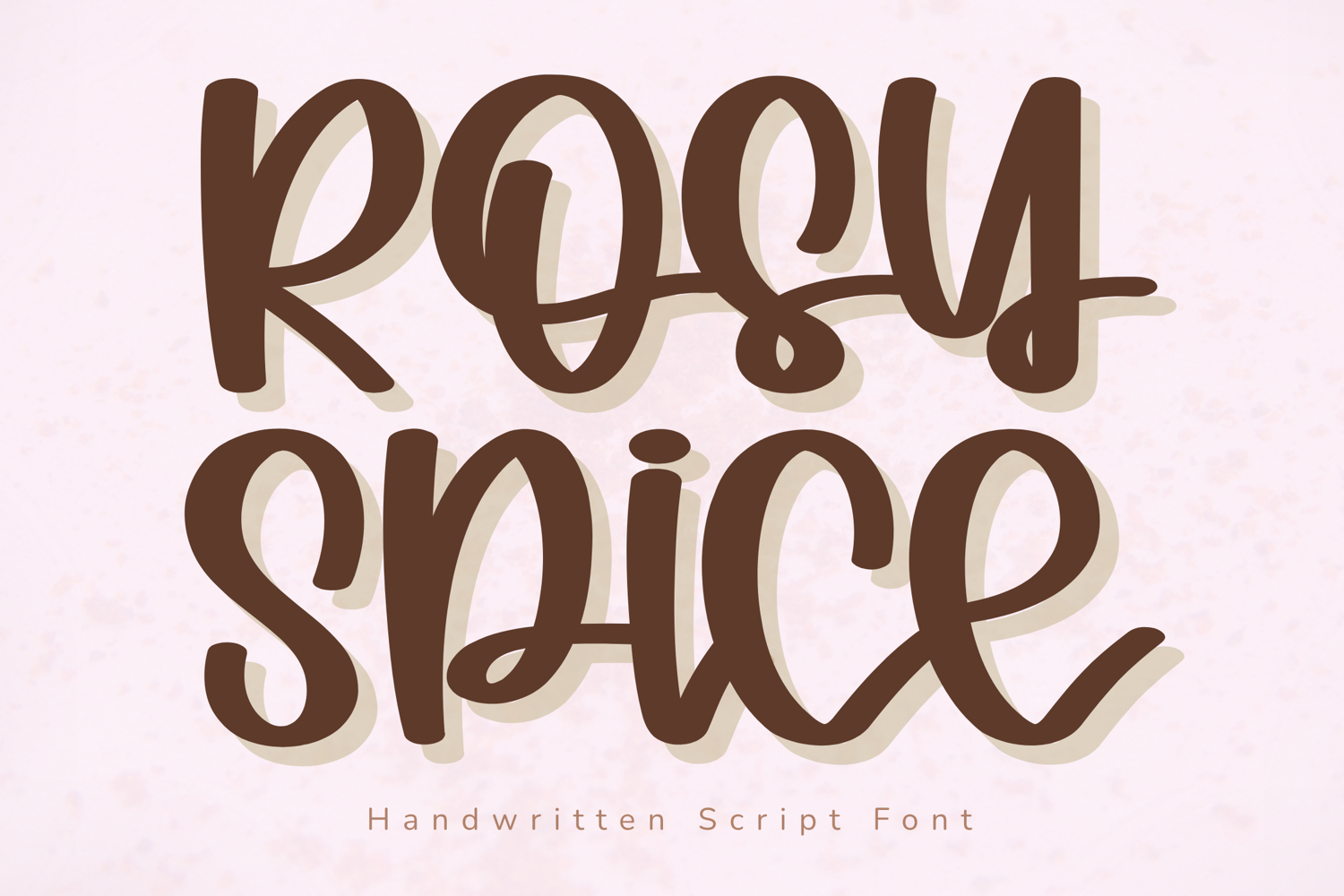
Rosy Spice - Handwritten Script Font
Rosy Spice – Handwritten Script Font
Rosy Spice is a bold and playful handwritten script font that blends sweetness with a touch of personality. Featuring rounded strokes, flowing curves, and expressive letterforms, this font creates a warm feminine aesthetic that feels modern, fun, and effortlessly stylish.
Its charming handwritten style makes Rosy Spice perfect for Cricut projects, planner covers, stickers, journals, branding, packaging, and social media graphics. The bold structure ensures excellent readability while the whimsical curves add a unique handcrafted character to every design.
Key Features:
Uppercase and lowercase letters
Numbers and punctuation
Bold handwritten script style
Smooth and rounded letterforms
Perfect For:
Cricut and Silhouette projects
Stickers and printables
Product packaging
Logos & Branding
Social media graphics
Planner and journal designs
Best Use Cases:
Sticker shops
Candle and cosmetic labels
Tote bags and mugs
Product packaging
Boutique branding
Planner dashboards
Design Style:
Rosy Spice combines a soft handwritten look with energetic personality. The balanced letterforms are easy to read while maintaining a playful and feminine charm that works beautifully across a wide range of creative applications.